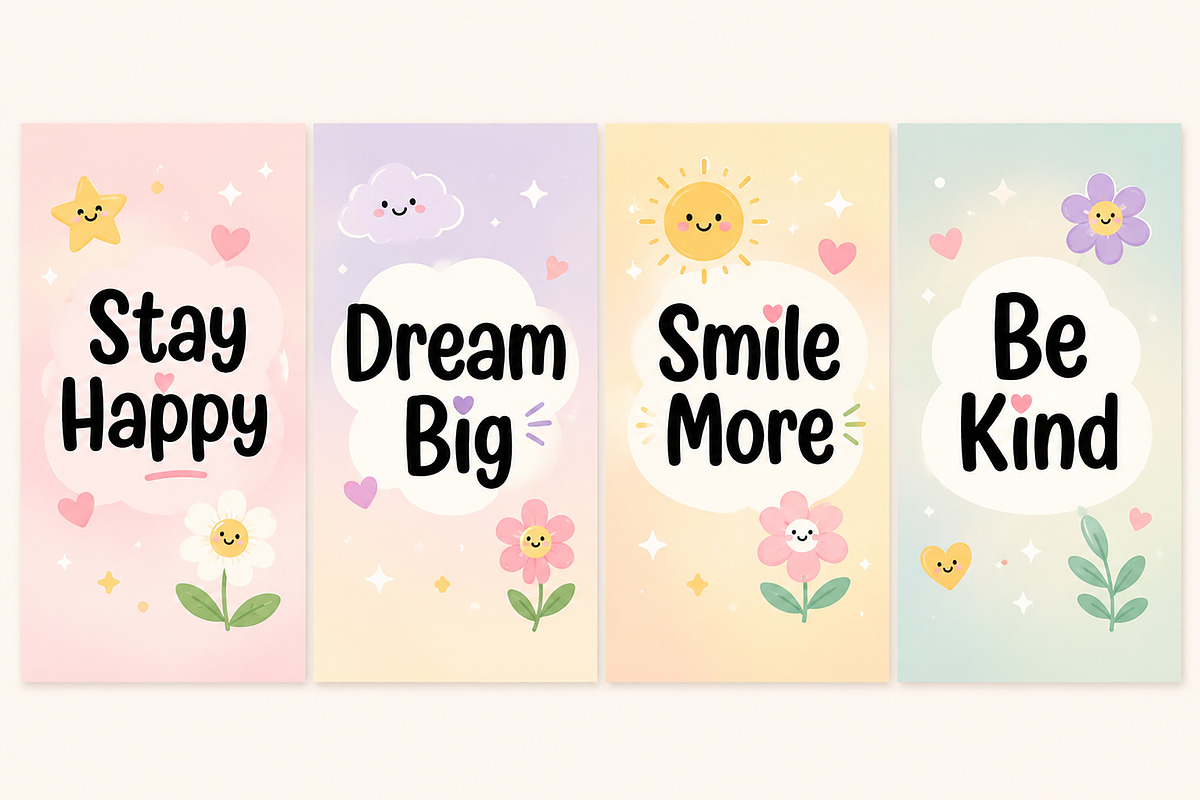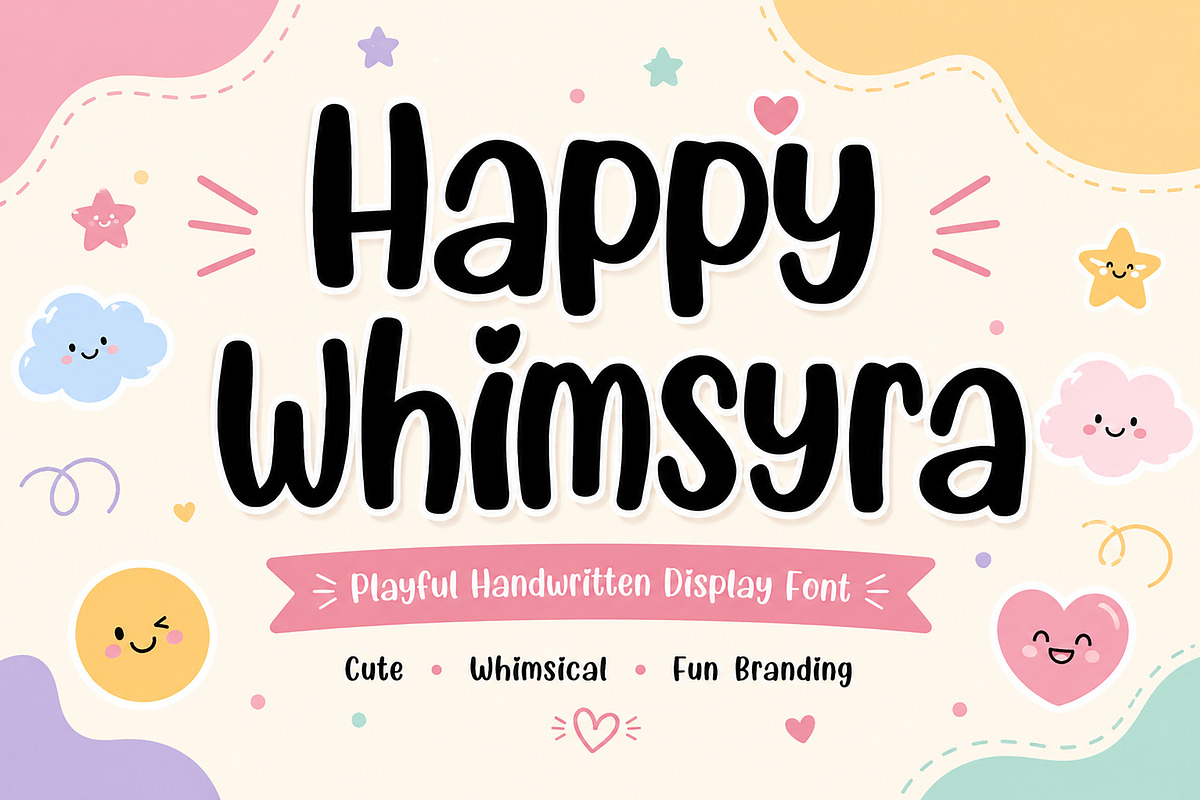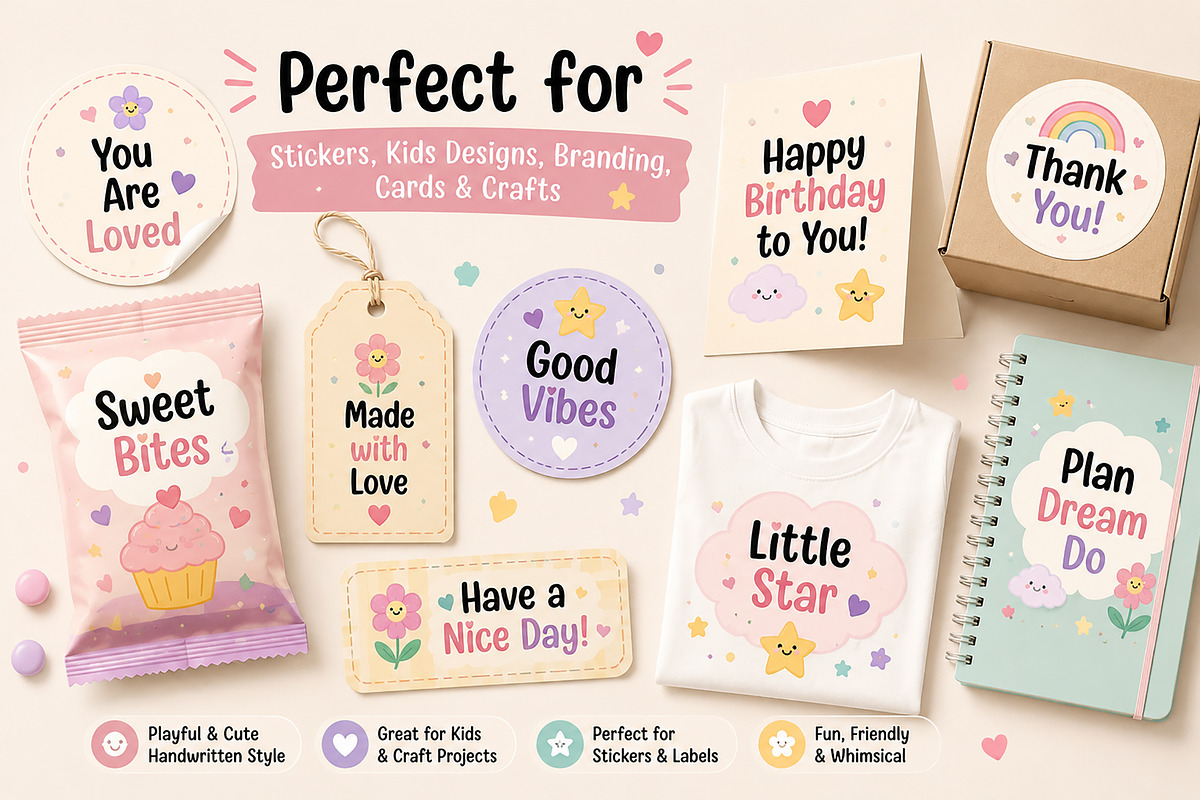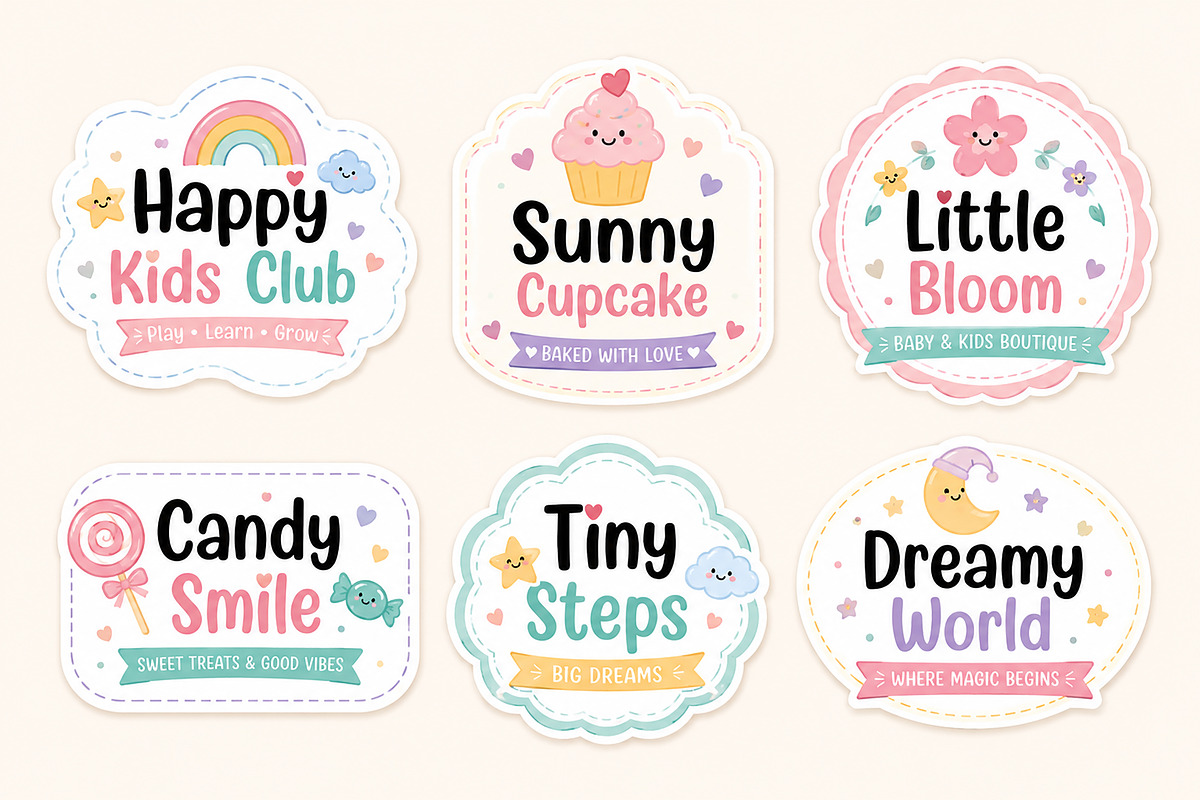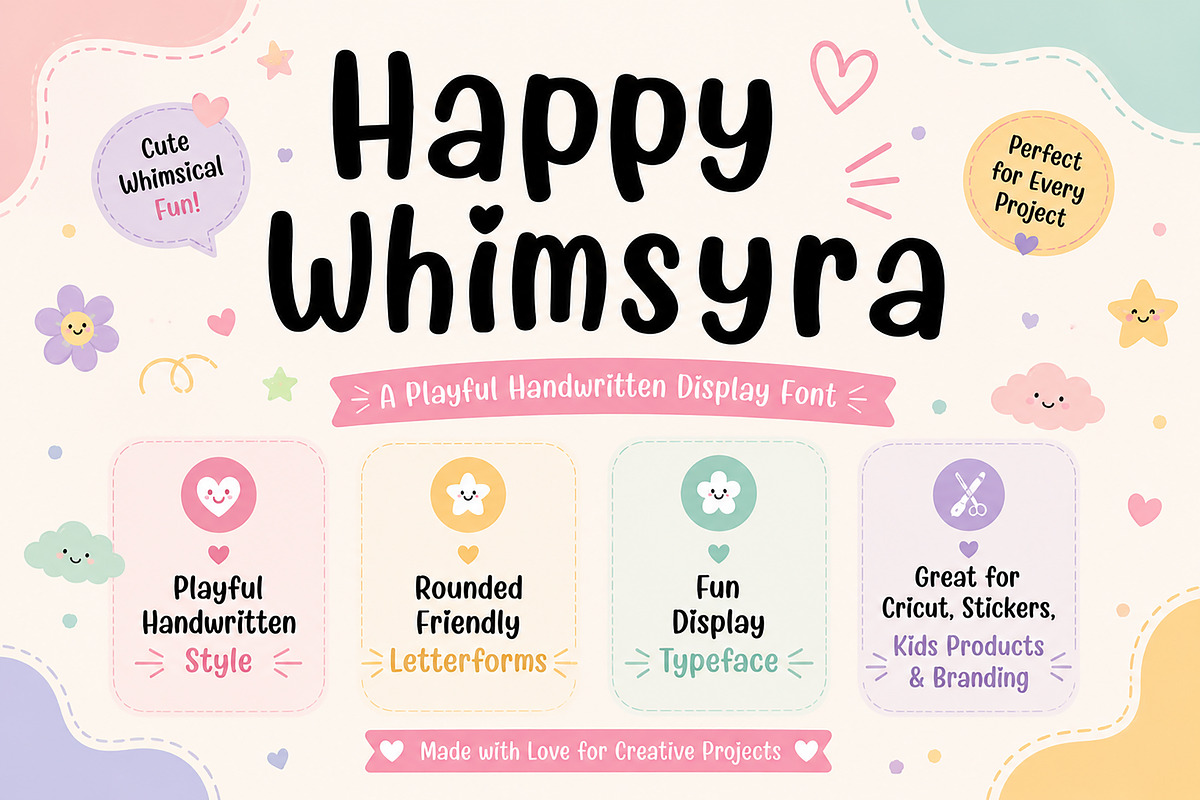
Happy Whimsyra
Happy Whimsyra | Playful Handwritten Display Font
Product Description
Happy Whimsyra is a playful handwritten display font designed to bring joy, warmth, and personality to every project. Featuring rounded letterforms, a friendly handcrafted feel, and a whimsical style, this font is perfect for creating eye-catching designs that feel fun, approachable, and full of charm.
Whether you're designing stickers, kids' products, Cricut crafts, branding, social media graphics, greeting cards, or cute packaging, Happy Whimsyra adds a cheerful handmade touch that stands out beautifully.
Its bold yet soft appearance makes it ideal for playful branding, DIY projects, birthday invitations, classroom materials, planner accessories, and creative digital products.
Kids Branding
Sticker Designs
Cricut & Silhouette Projects
Greeting Cards
Birthday Invitations
Bakery & Candy Logos
Children's Books
T-Shirts & Apparel
Planner Stickers
Printable Designs
Scrapbooking
Gift Tags & Labels
DIY Crafts
Posters & Quotes
Playful Handwritten Style
Rounded Friendly Letterforms
Cute Display Typeface
Easy to Read
Smooth Handcrafted Look
Perfect for Fun Branding